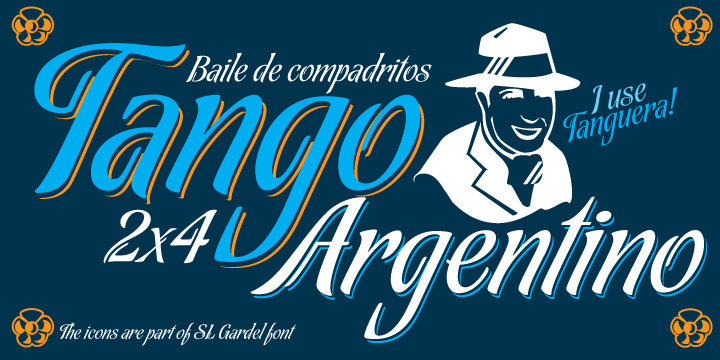
Tanguera
Designed by: Alejandro Paul, Angel Koziupa
Tanguera
While Bellas Artes, Koziupa and Paul’s “other” look at intertwined classicism in calligraphy, can be compared to the repeated patterns of standardized dance steps, Tanguera is more like dancers engaged in a free form of the classic Argentine dance. Whether the embrace is open or closed, the walk parallel or crossed, it is still classical tango, with leader and follower blending together, sometimes in relaxed softness, sometimes in alert sharpness, yet never losing the clearest of communication.
Tanguera provides essential rhythm to any packaging design that calls for clean and classical personalization.